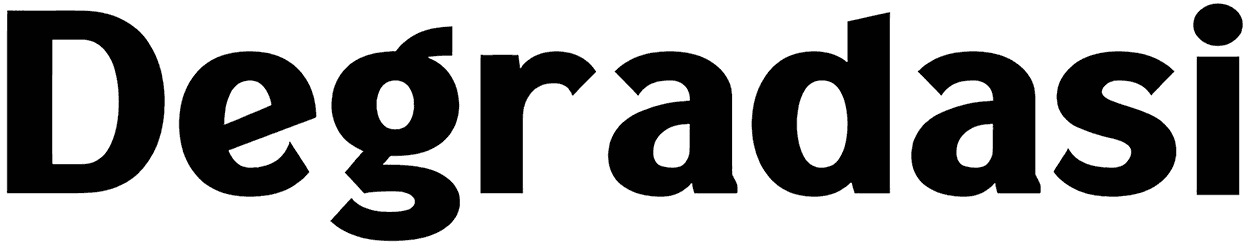
d Degradasi Font
d Degradasi is a clean and vintage inspired version of digital and pixelated typefaces and can look ideal anywhere legibility is your priority. This sans serif font is for designers who want to return to standard design frameworks for a while and convey their seriousness. This font will make you flourish in designing website titles, newspaper headlines, and short texts on posters.